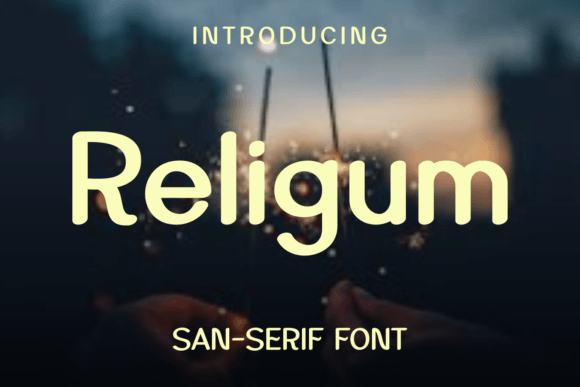
Step into the world of typography with Religum, a font that captivates with its sleek sans serif style, tailor-made for the demands of business flyers. Designed by lelevien, this font exudes sophistication, clarity, and a touch of modernity that will leave an enduring impression on your audience.
Dive into the depths of Religum's versatility, where creativity knows no bounds. Its clean lines and distinct character ensure seamless integration into any design concept. Whether you seek to craft captivating flyers, brochures, presentations, or social media graphics, Religum stands ready as your steadfast companion. Its adaptability extends to web design, where it brings life to headlines, paragraphs, and call-to-action buttons with equal finesse.
Harness the power of Religum to transform your business flyers into captivating works of art that command attention. This font's inherent strength and authority lend themselves perfectly to conveying important messages and capturing the imagination of your target audience. With Religum, you'll leave a lasting impression that lingers long after the flyer has been read.
As you explore the nuances of Religum, you'll discover a font that not only excels in readability but also possesses a unique charm. Its carefully crafted letterforms exude a sense of professionalism and trustworthiness, making it an ideal choice for businesses seeking to establish a rapport with their clientele. The font's versatility extends to personal use, where it adds a touch of elegance to invitations, greeting cards, and personal branding projects.
Embark on a typographic journey with Religum, a font that empowers you to communicate with clarity and style. Its ability to elevate any project to new heights makes it an indispensable tool for designers, marketers, and creative professionals alike. As you embrace Religum's transformative power, you'll unlock a world of possibilities where your ideas take center stage and leave an indelible mark on your audience.